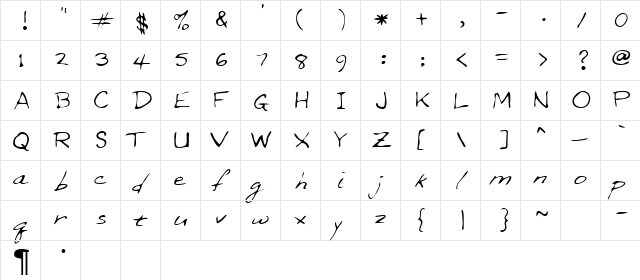
Brion Regular
Design Context for Brion Typeface
Brion is a composed and adaptable typeface that performs quietly and consistently across a wide range of design contexts.